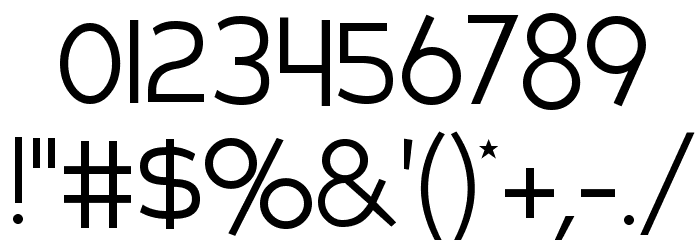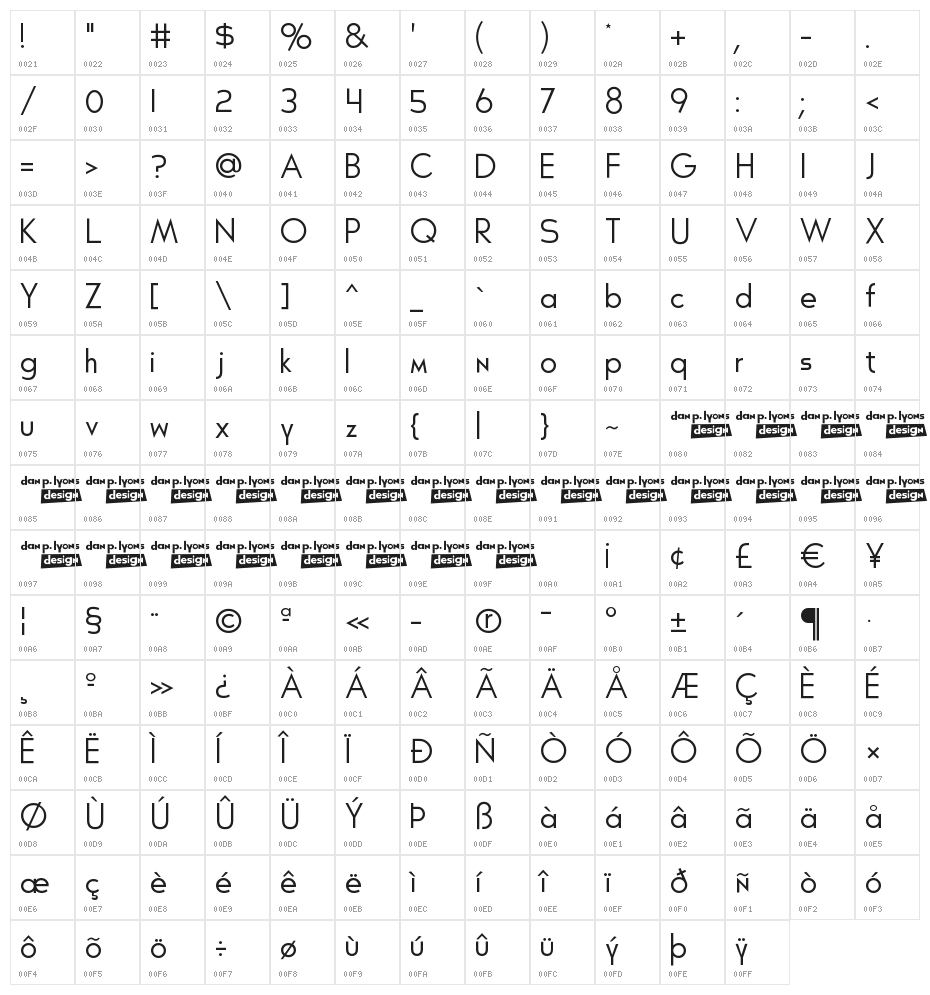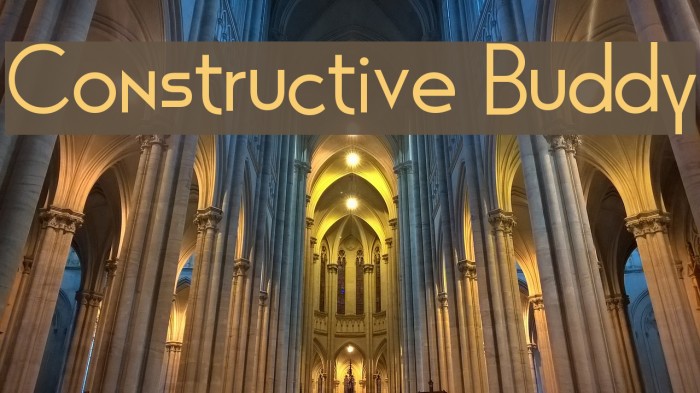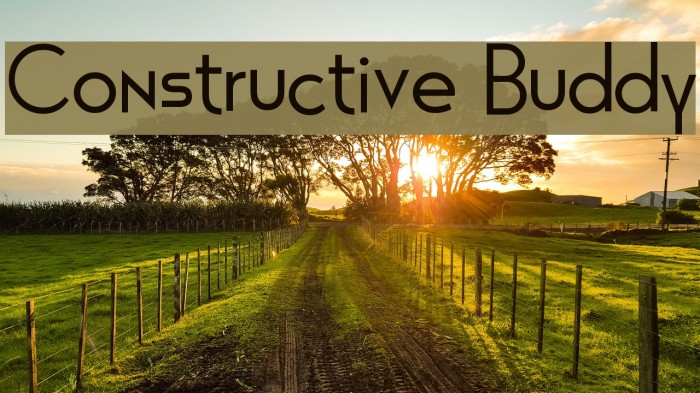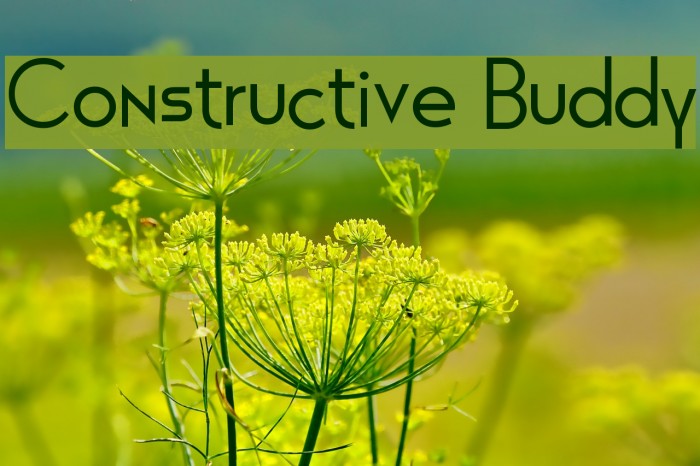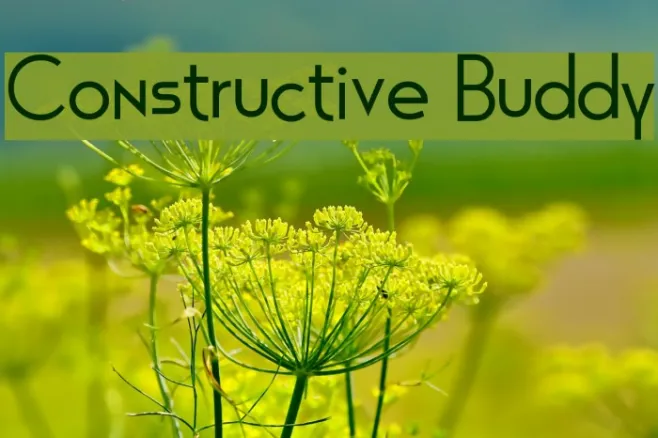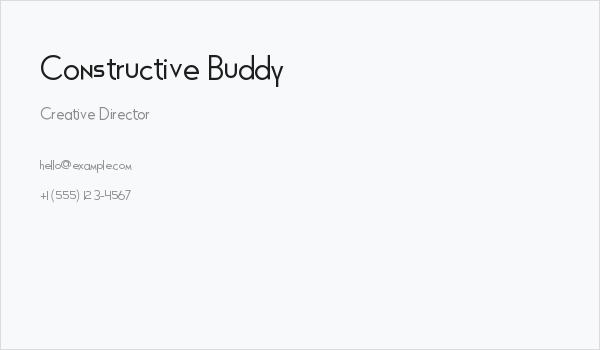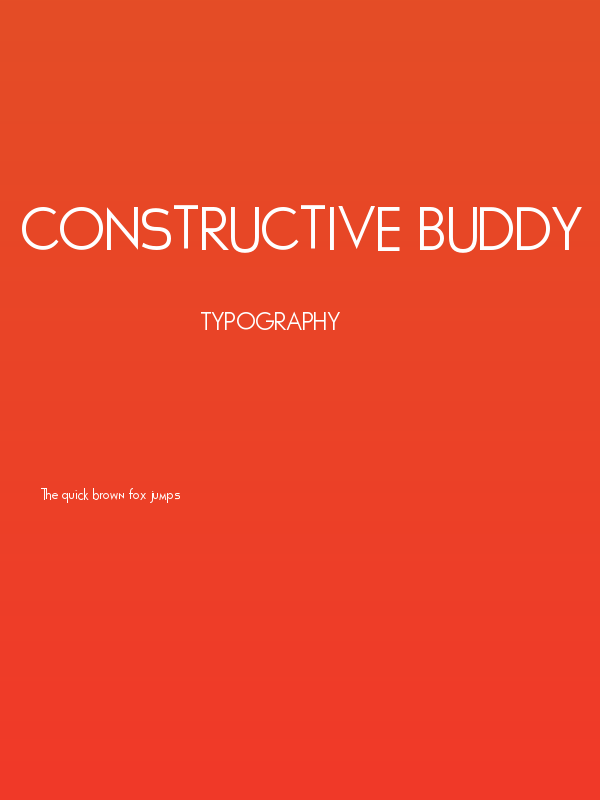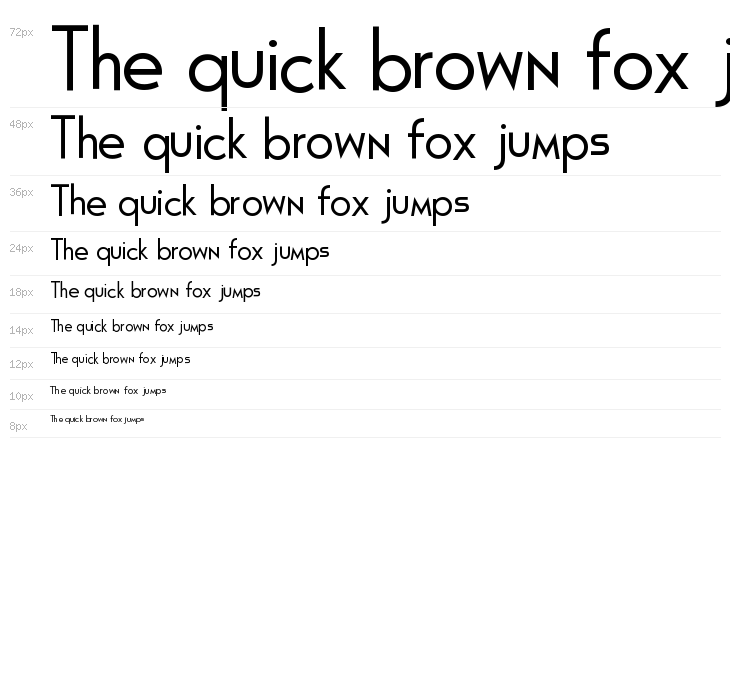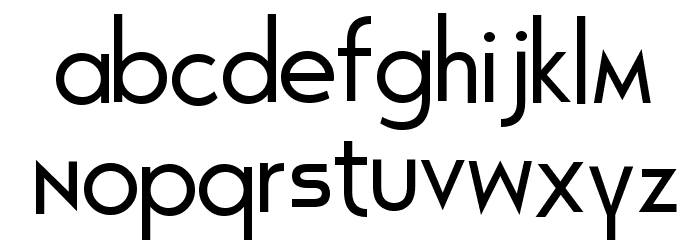
Constructive Buddy Font
Constructive Buddy Description
This typeface features a clean and geometric design, characterized by its uniform stroke width and modern aesthetic. The uppercase letters are bold and striking, with a slightly condensed appearance that enhances readability. The lowercase letters maintain a consistent style, with rounded edges that add a touch of softness to the overall look. The numerals are clear and easy to distinguish, making them suitable for various applications. Special characters are well-integrated, maintaining the font's cohesive design. This font's simplicity and clarity make it versatile for both digital and print media.